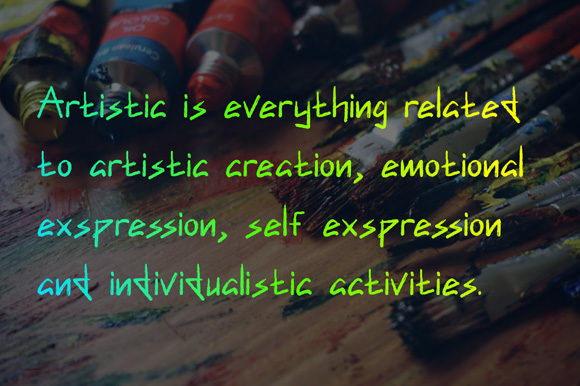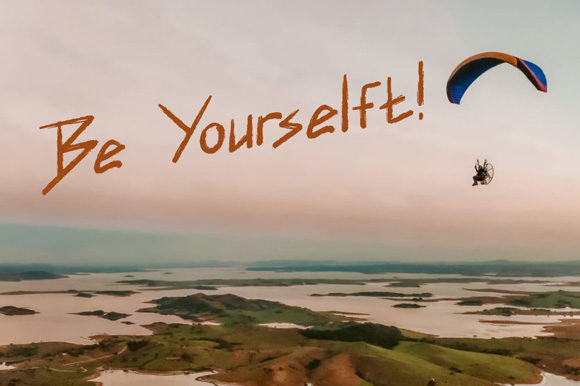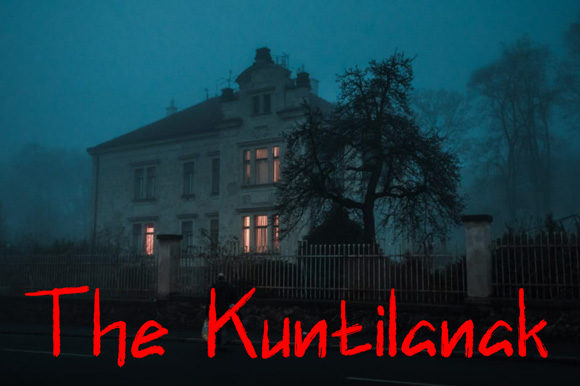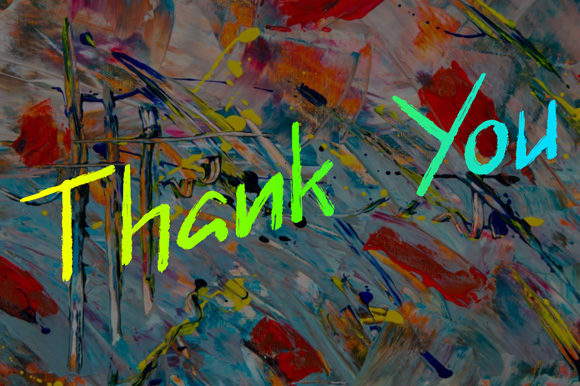
HomeScript FontsRinjani Font Script Fonts Rinjani Font FacebookXPinterestWhatsApp Rinjani Font Poster 2 Rinjani Font Poster 3 Rinjani Font Poster 4 Rinjani Font Poster 5 About Rinjani Font Rinjani combines thick brushes and expressive strokes, making it a raw and strong script with a bold feel! DOWNLOAD NOW People also explored Monarchy Initials Brently Garfield Font Chesta Font Britania Font Remixing Font Remained Font Gemelenjit Font Vanella Font Unicorn Font 308 0 TagsRinjani Font Previous articleFastfood FontNext articleAroha Script Font LEAVE A REPLY Cancel reply Comment: Please enter your comment! Name:* Please enter your name here Email:* You have entered an incorrect email address! Please enter your email address here Website: Save my name, email, and website in this browser for the next time I comment. Personal Use Free Pelmeshka Personal Use Free Read more about this font Indonesia Dermawan Personal Use Free Read more about this font Crack Man Personal Use Free Read more about this font Bestlife Personal Use Free Read more about this font BLOG 5 Fonts That Will Dominate Design Trends in 2026 5 Fonts for 2026 That Will Dominate Design Trends Typography plays a critical role in visual communication, and as we look ahead to 2026, it’s... Exploring Font Trends Top 7 Google Fonts Alternatives for Faster and Privacy-Friendly Web Design (2025) How to Cut Any Font on Cricut: Convert a Font to SVG (Free)